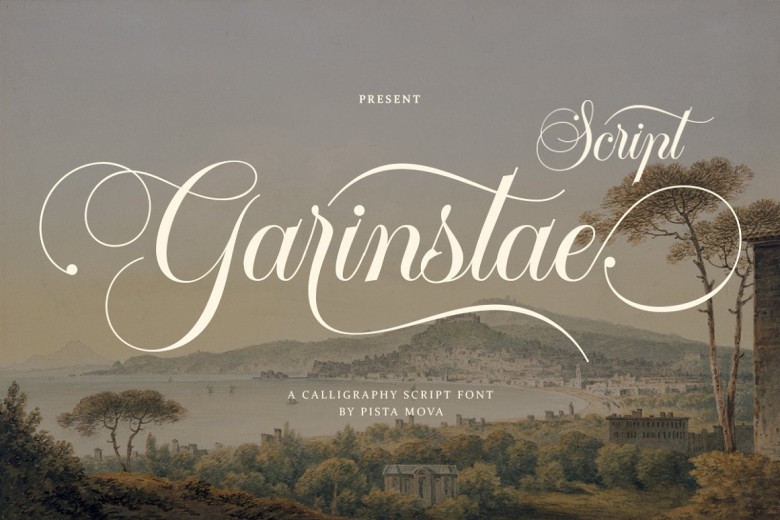
Garinstae Script Font
Garinstae Script is a modern and traditional handwritten calligraphy soft and suitable for many designs, such as logos printed invitations quotes cards packaging for products headers or any other designs you can think up.
Garinstae Script allows you to make dynamic text that fits any layout you can dream up by turning on its alternative Styles, Swashes and Binders using Photoshop, Adobe Illustrator InDesign or the Glyph Panel found within Adobe Illustrator Photoshop CC to change characters between standard characters to alternate ones to achieve layout desired layout – plus it comes equipped with numbers punctuation glyphs as well as multilingual capabilities!
Garinstae Script Font